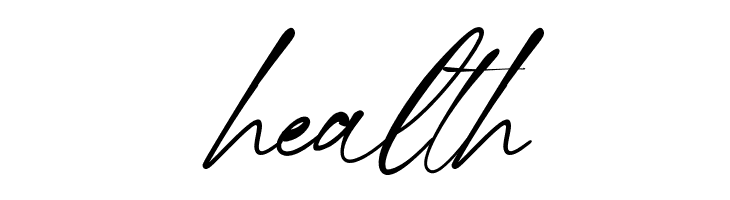
A whimsical, handwritten-style font with flowing, decorative strokes.
A dynamic cursive script font with fluid, expressive strokes.
A fluid, handwritten-style font with a personal and expressive touch.
A casual, handwritten font with a light and fluid style.
A modern, elegant font with clean lines and a sophisticated appearance.
A casual handwritten font with fluid, slanted strokes and a personal touch.
A flowing, cursive script font with elegant loops and a modern touch.
A charming, fluid handwritten font with bold, confident strokes and a slight slant.
A playful, bold handwritten font with a casual and creative style.
A bold and expressive script font with fluid, interconnected strokes.